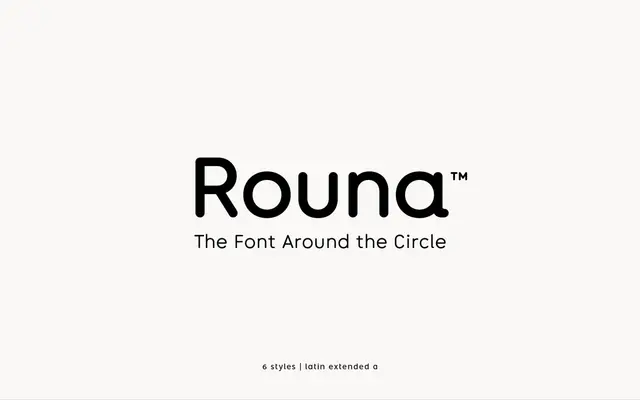
Rouna
atipo foundry · Raul Garcia del Pomar, Ismael Gonzalez (atipo) · 2019
Rouna specimen from atipo foundry
A rounded geometric sans from atipo built around the circle, with three weights, italics, stylistic alternates and tabular figures.
A rounded geometric sans by atipo, described by the studio as the font around the circle. Six styles run across three weights, Regular, Medium and Bold, each with a matching italic, and the family carries stylistic alternates, tabular figures, fractions, superiors, ordinals and case-sensitive forms. Sits in identity, packaging and product work where the brand wants warmth and a clear geometric base. Atipo offer Bold as a free download with the rest of the family on a pay what you want basis.
Atipo describe Rouna as the font around the circle, a rounded geometric sans with three weights, italics, stylistic alternates and tabular figures.